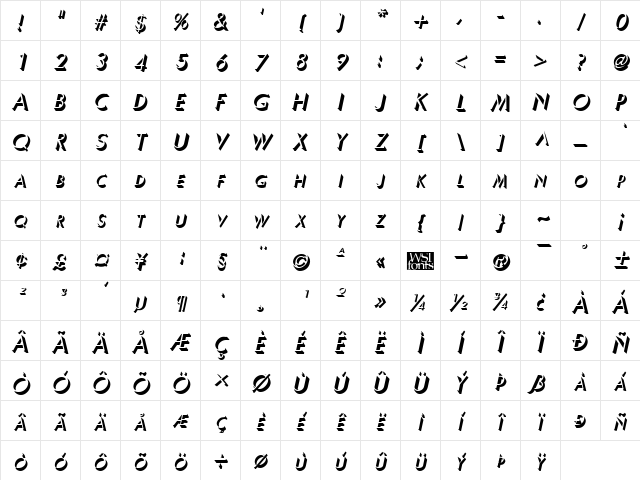
UltraShadow kursiv
Style: kursiv
Design Context for UltraShadow
UltraShadow is built around its visual character rather than neutral utility - its distinctive forms are designed to make an impression at display sizes. The slanted form adds forward momentum and visual energy.
Font Pairing: Pair with a clean neutral sans-serif for body copy to let UltraShadow's character lead without overwhelming the composition.
Pro Tip: Use UltraShadow exclusively at display sizes - it was designed to be seen, not read at length. Let a neutral companion handle body copy.